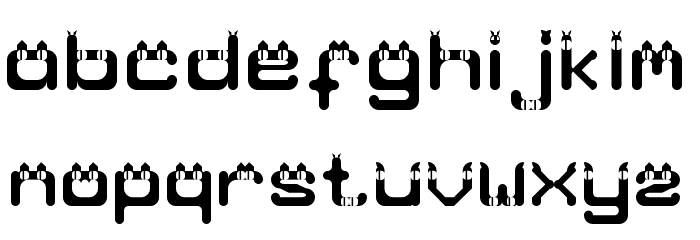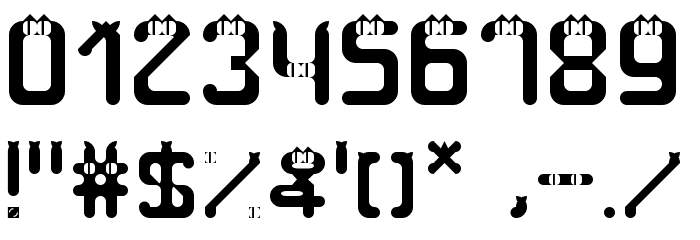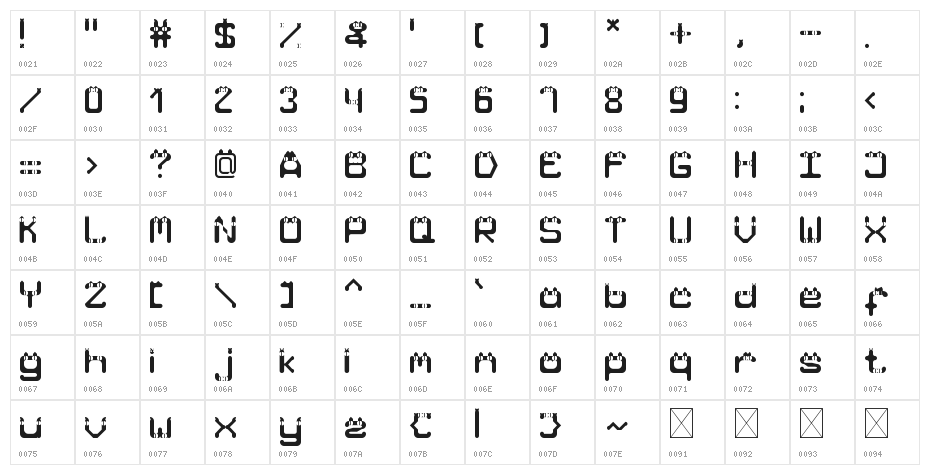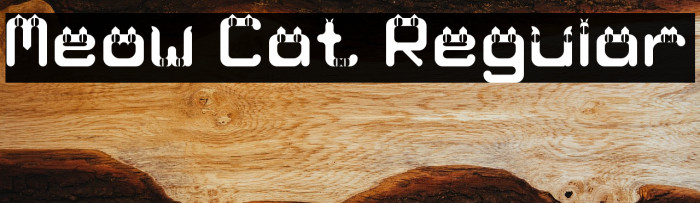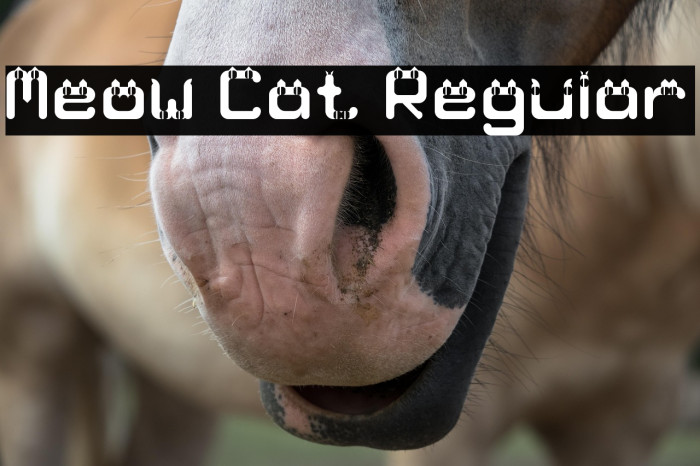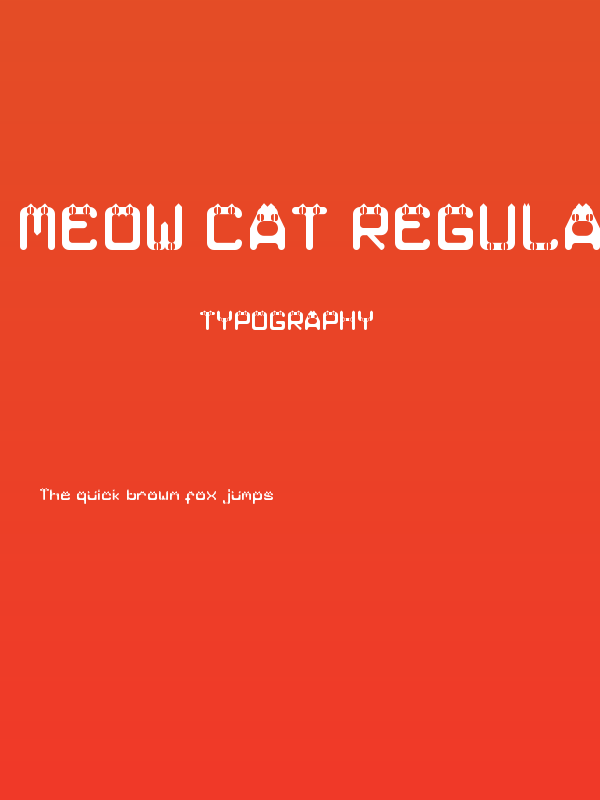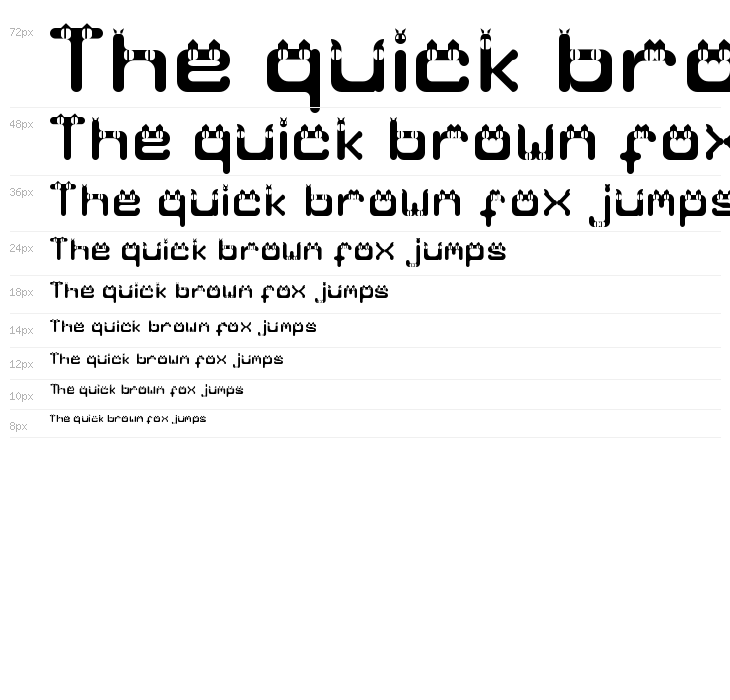
Meow Cat Regular Font
This playful and whimsical font features unique cat ear designs integrated into each character, creating a fun and distinctive look. The letters are bold and rounded, with a consistent stroke width that gives a sense of uniformity. The font maintains a modern and quirky aesthetic, making it ideal for projects that require a touch of creativity and humor. The characters are well-spaced, ensuring readability while maintaining their decorative appeal. This font is perfect for children's books, playful branding, or any project that seeks to incorporate a lighthearted and imaginative style.
A playful font with cat ear designs on each character, offering a whimsical and modern aesthetic.
- Proposed Projects: Children's books, playful branding, creative posters, novelty items, and themed event invitations.
- Overall Style: Modern, Decorative